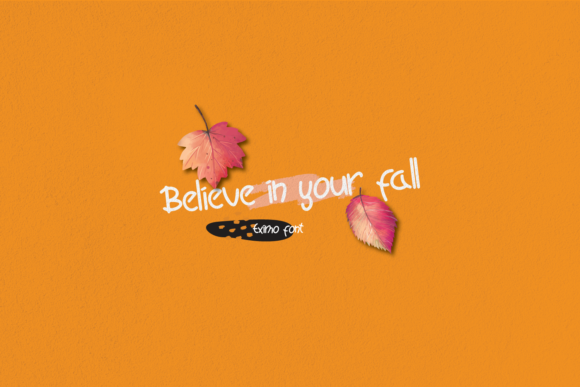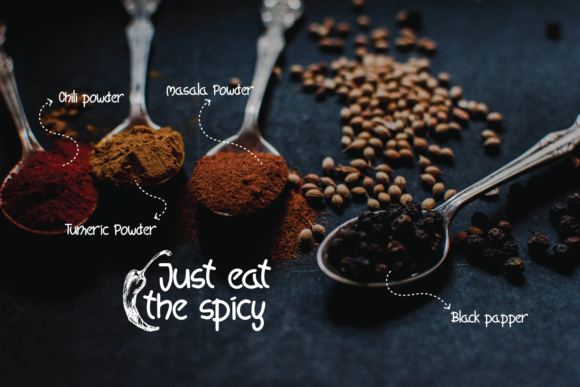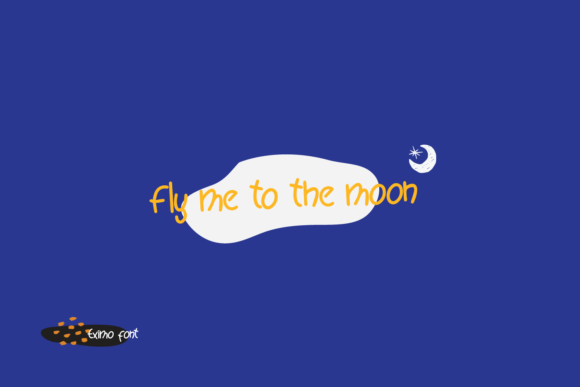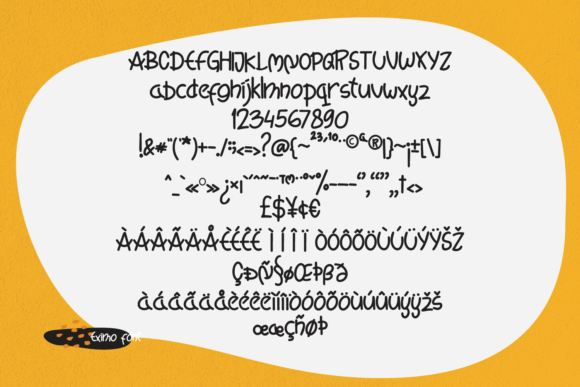
The Ultimate Guide to Eximo Font: Adding a Bouncy Touch to Your Designs
I’ll never forget the time I was working on a project for a trendy boutique client, and I just couldn’t find the right font to match their fun and vibrant brand. I scrolled through page after page of Google search results, but nothing seemed quite right. That was until I stumbled upon Eximo Font – a bouncy and quirky display font that instantly caught my eye. In this article, I’ll share my experience with Eximo, its unique features, and how to make the most of it in your designs.
An Honest Review of Eximo Font
So, what makes Eximo Font so special? Let’s dive into the good stuff and a few quirks I’ve discovered.
What I Love About Eximo Font
- ✨ Unique and eye-catching design: Eximo’s bouncy and quirky style is perfect for adding a fresh touch to your designs.
- ✅ Highly versatile: This font can be used for a wide range of projects, from branding and advertising to packaging and more.
- 🎉 Easy to read: Despite its playful design, Eximo is surprisingly easy to read, even in larger blocks of text.
While Eximo Font is amazing, it’s not without its limitations. Here are a few things to keep in mind:
- 🤔 May not be suitable for body text: Eximo’s playful design makes it better suited for headlines and titles rather than longer blocks of text.
- ⚠️ Limited font weights: Eximo currently only comes in a few font weights, which may limit its use in certain design applications.
The Backstory Behind Eximo Font
Eximo Font was designed with the goal of creating a unique and playful display font that would add a fresh touch to any design. Inspired by modern street art and graffiti, Eximo’s creator aimed to craft a font that was both fun and versatile. The result is a font that’s perfect for designers, crafters, and creative hobbyists looking to add a little excitement to their projects.
| Font Name | Eximo Font |
| Author | Line creative |
Q: What type of projects is Eximo Font best suited for?
A: Eximo Font is perfect for projects that require a fun and playful touch, such as branding, advertising, packaging, and more.
Q: Does Eximo Font come in different font weights?
A: Currently, Eximo Font is available in a limited number of font weights. However, this may change in future updates.